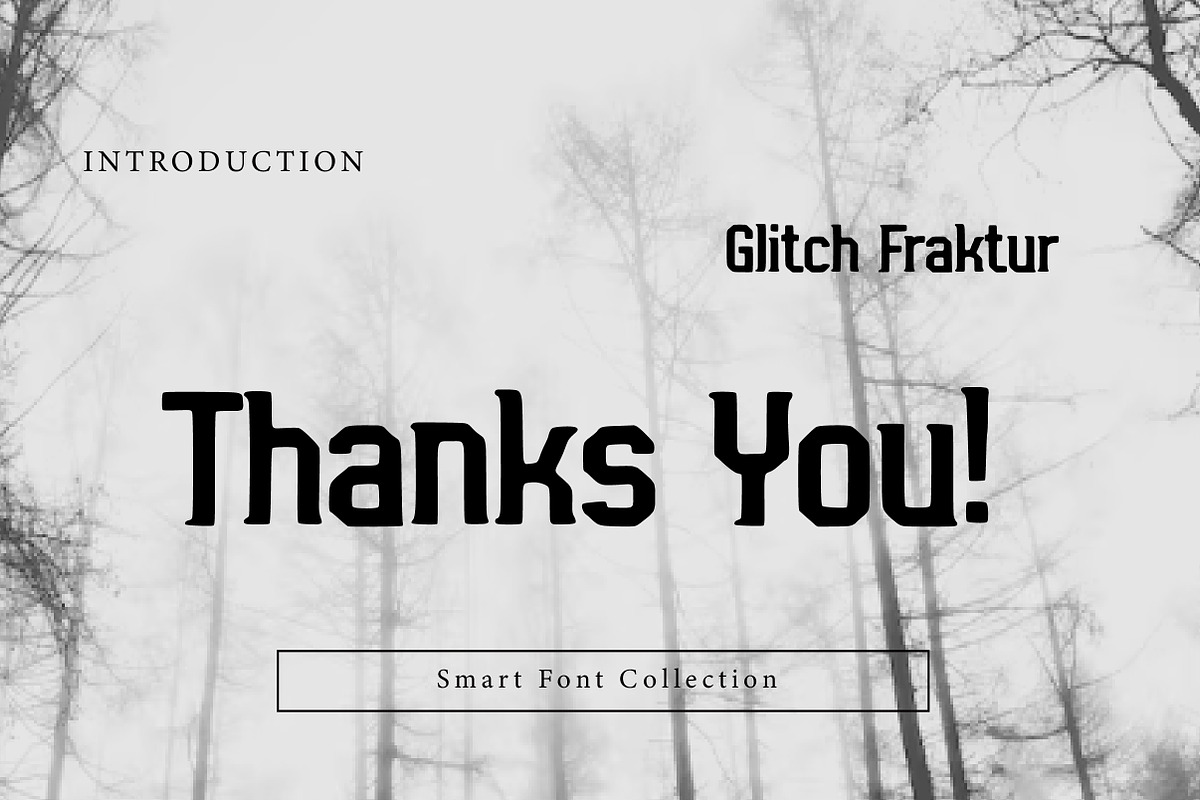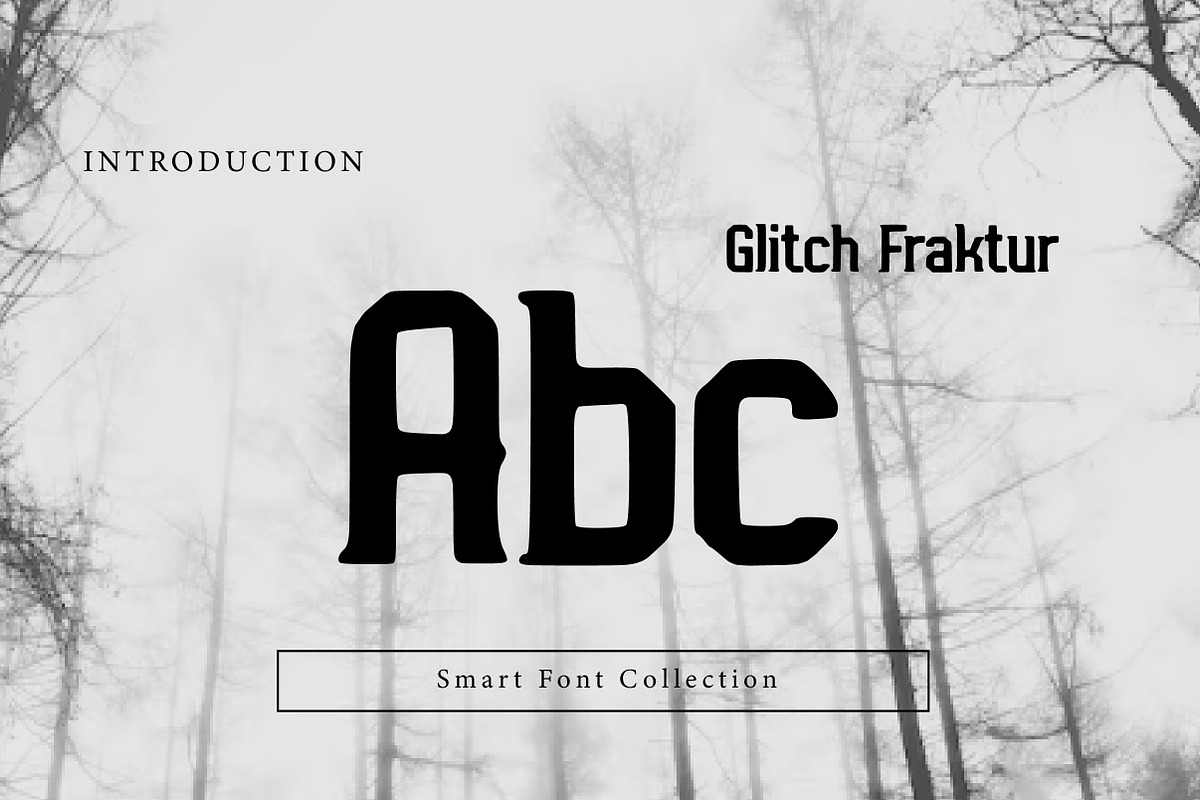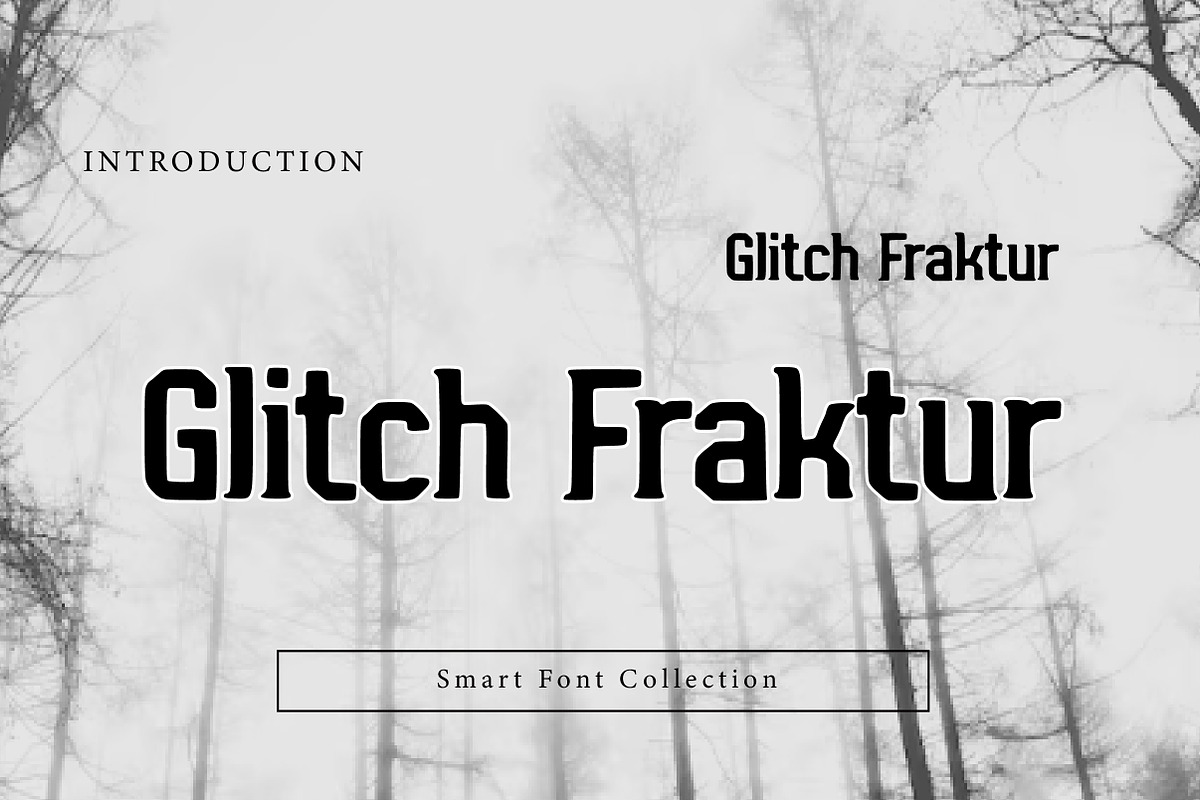
Glitch Fraktur
Glitch Fraktur is a bold blackletter display font that blends classic Fraktur / Gothic letterforms with a modern, distorted “glitch” attitude. The chunky shapes and edgy cuts give it a strong, rebellious look—perfect for designs that want a mix of old-world tradition and modern chaos.
Use it for streetwear branding, band logos, posters, album covers, gaming and esports graphics, YouTube thumbnails, stickers, t-shirt designs, dark aesthetic layouts, gothic headlines, and tech-glitch themed artwork. Glitch Fraktur delivers powerful impact while keeping the iconic blackletter vibe.
Perfect for: Modern gothic branding, cyberpunk/digital themes, metal/rock merch, edgy posters, and statement typography.